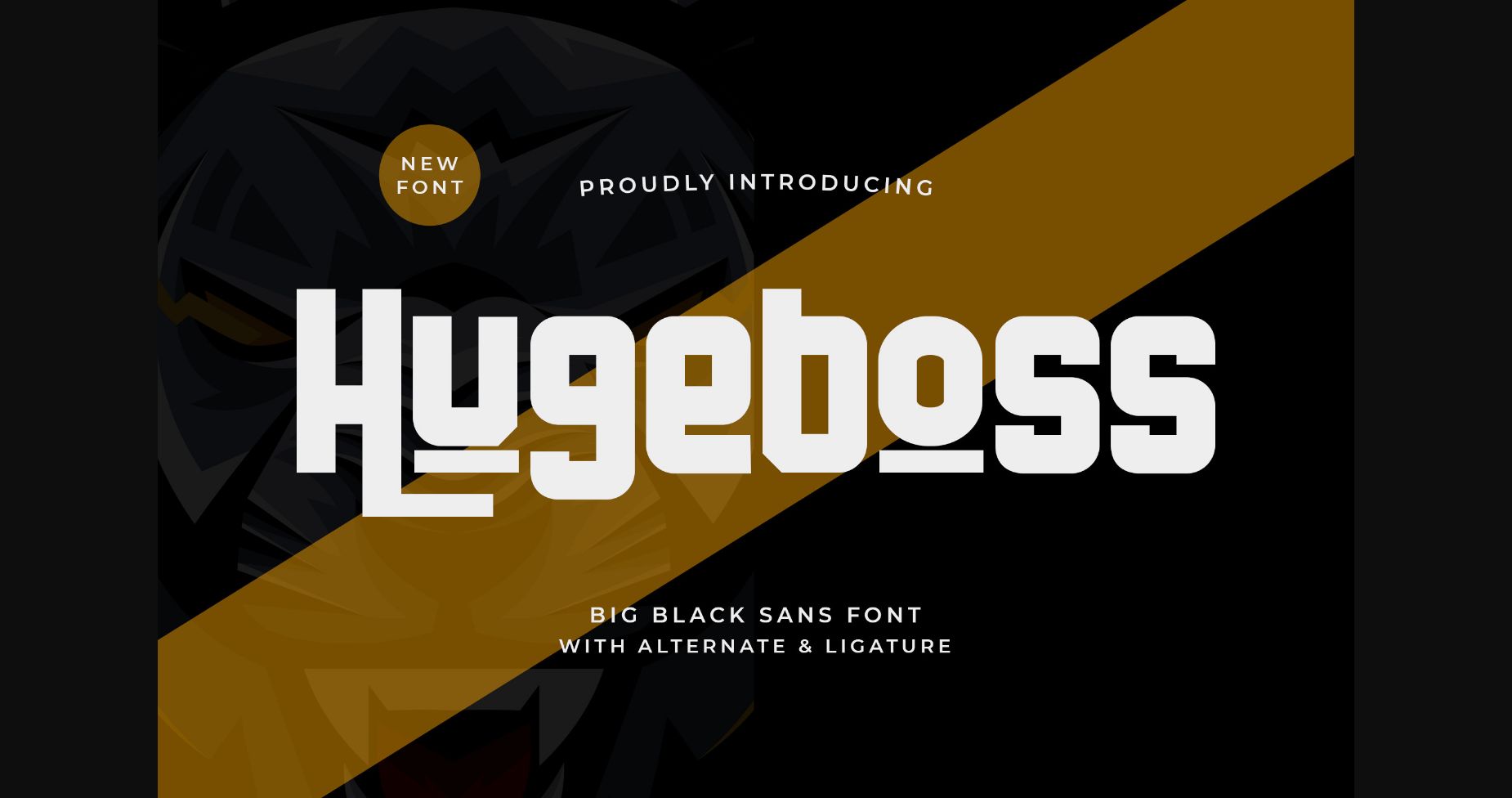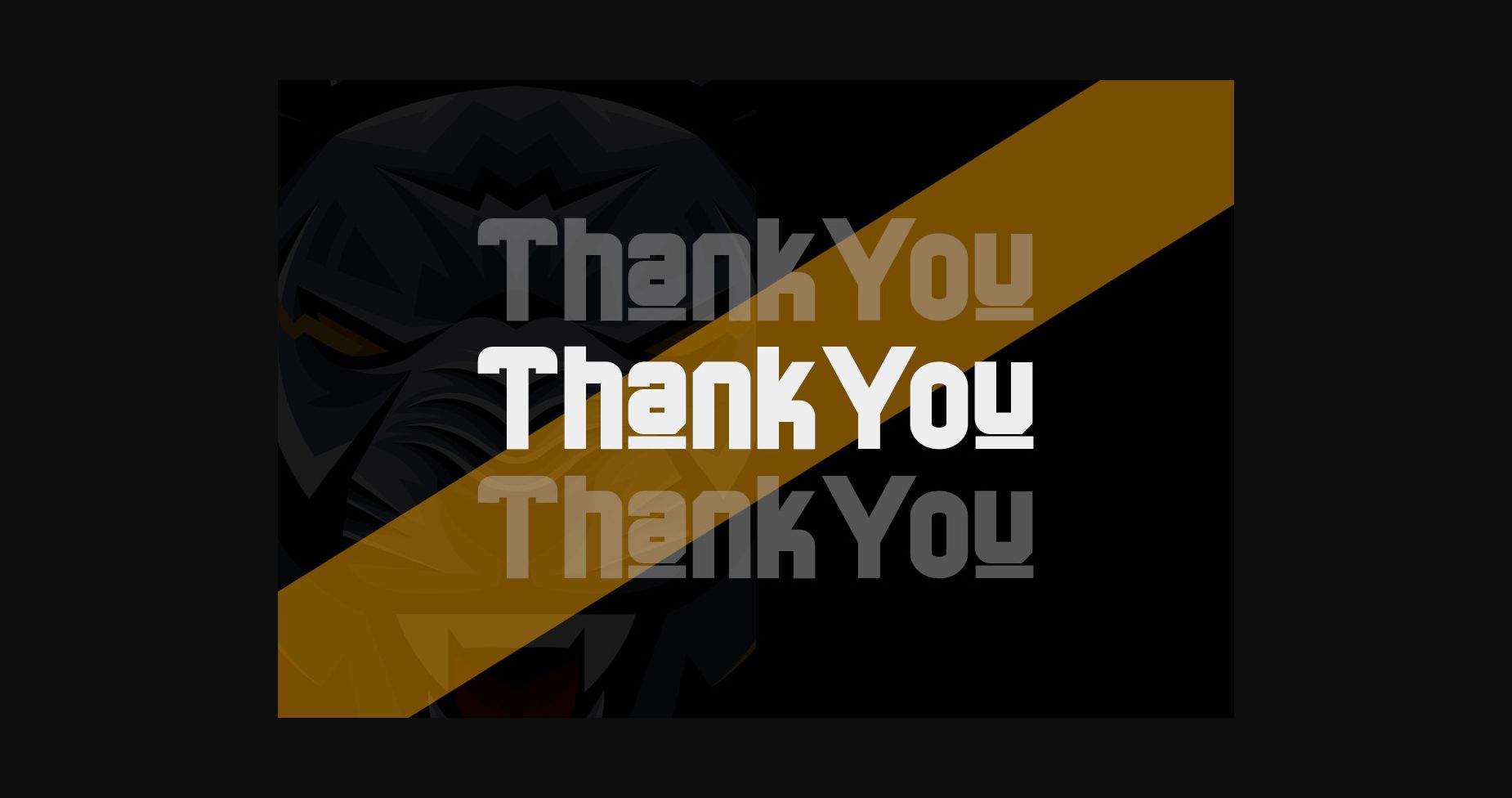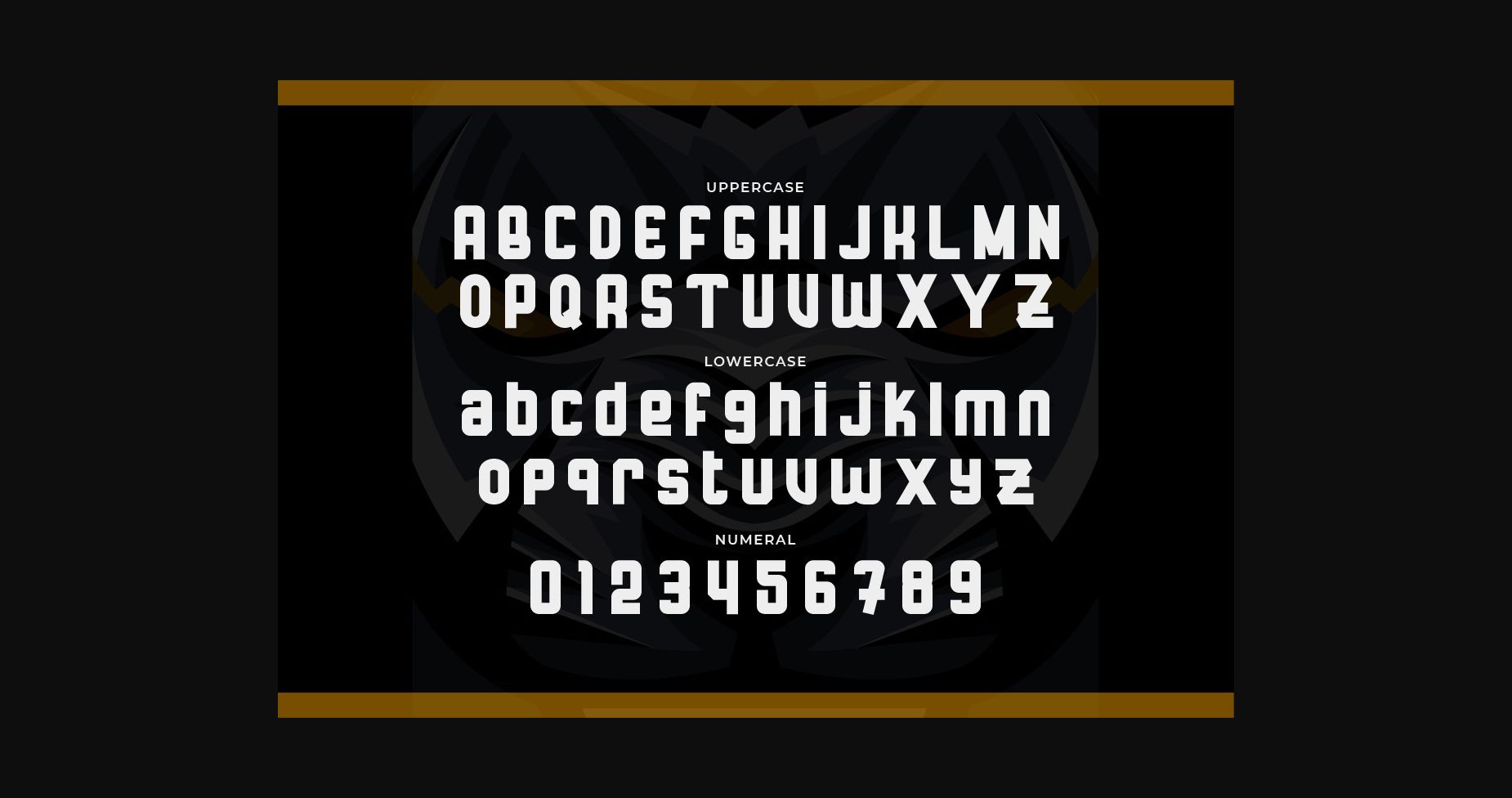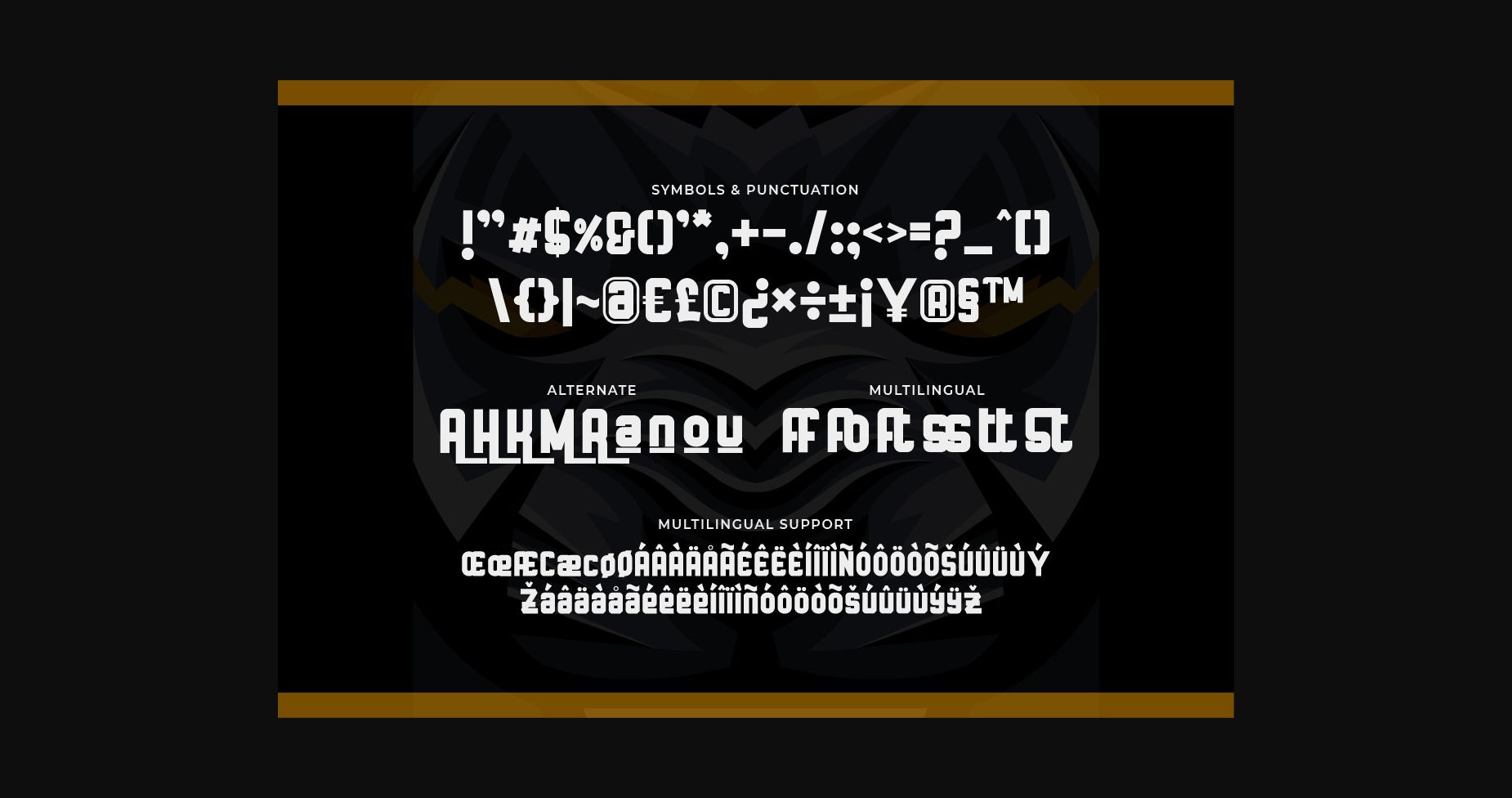
About Hugeboss Font
Looking for a font that’s bold, powerful, and impossible to ignore? Look no further than Hugeboss – a big, black sans font that’s perfect for making a statement.
With its thick, heavy letterforms and no-nonsense attitude, Hugeboss is a font that demands attention. Each letter is designed to take up as much space as possible, making it perfect for headlines, titles, and other text that needs to stand out.
Whether you’re creating a poster for a protest or designing a logo for a new sports team, Hugeboss is the perfect font for the job. It’s also great for use in packaging design, advertising, and other creative projects where a bold and impactful font is needed.
With its thick, heavy letterforms and no-nonsense attitude, Hugeboss is a font that demands attention. Each letter is designed to take up as much space as possible, making it perfect for headlines, titles, and other text that needs to stand out.
Whether you’re creating a poster for a protest or designing a logo for a new sports team, Hugeboss is the perfect font for the job. It’s also great for use in packaging design, advertising, and other creative projects where a bold and impactful font is needed.